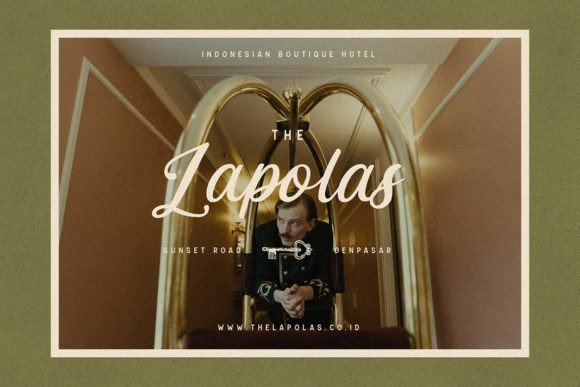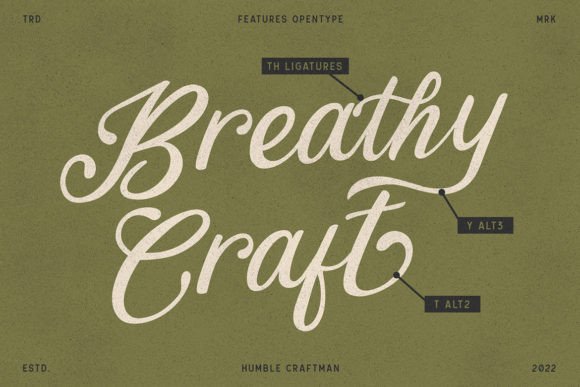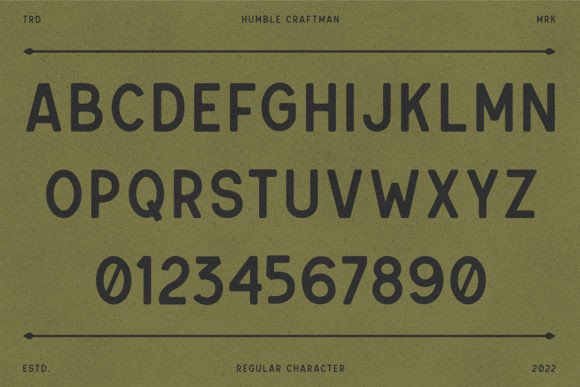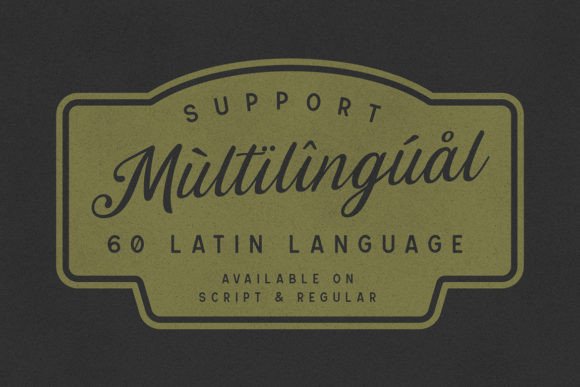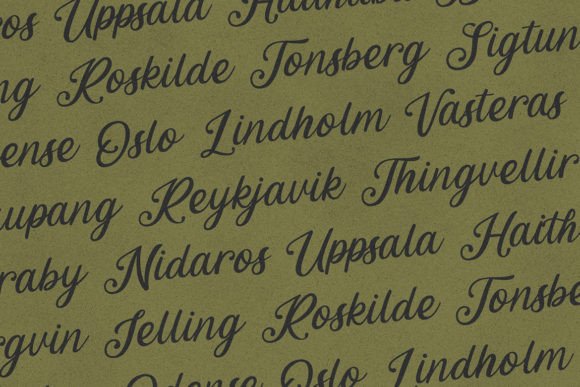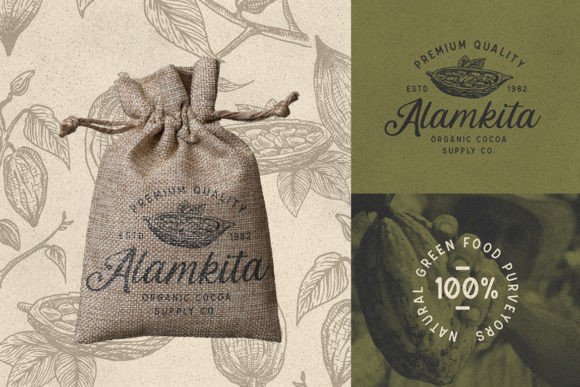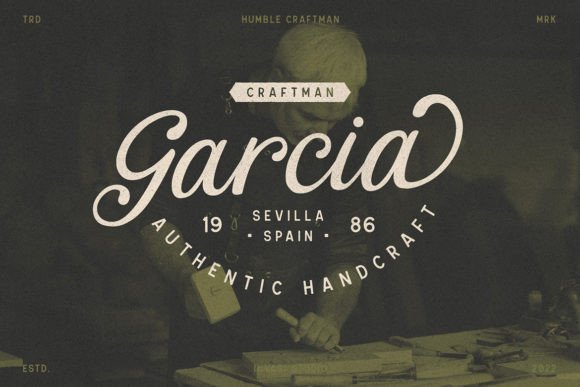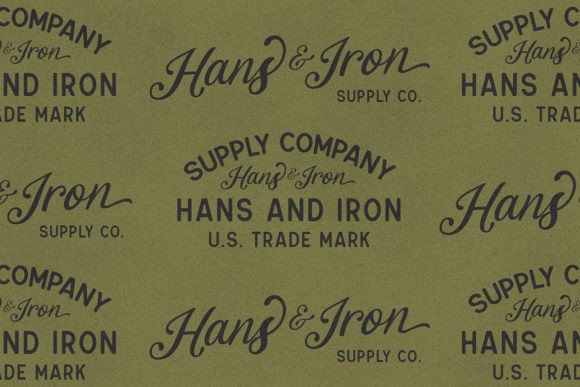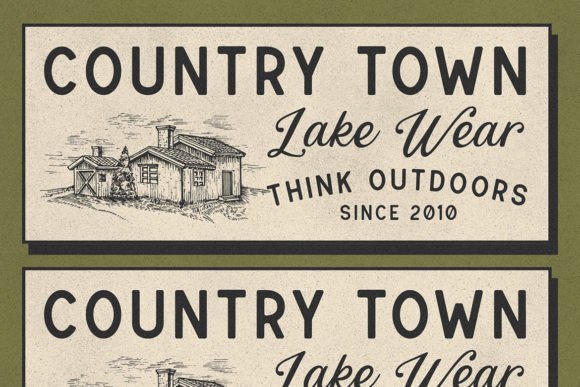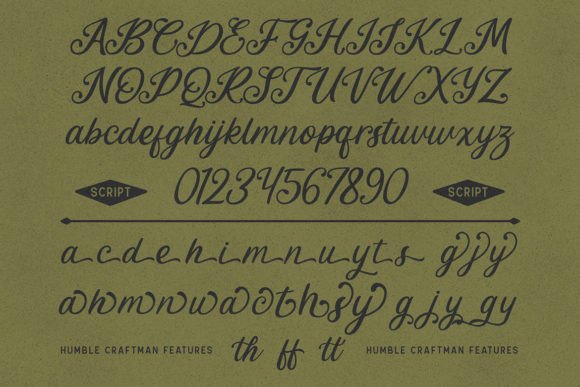
Humble Craftman Font
About Humble Craftsman Font
Humble Craftsman is an incredibly versatile font that combines both script and sans-serif typefaces. This distinctive font effortlessly blends classic historical charm with contemporary retro influences. As a result, it creates a captivating and dynamic typographic experience. Additionally, Humble Craftsman is PUA encoded, providing convenient access to a wealth of fascinating glyphs and ligatures.
Versatility in Design
The versatility of Humble Craftsman shines through its ability to adapt to various design contexts. Whether you’re working on a vintage-inspired project or a modern retro concept, this font bridges the gap between classic and contemporary aesthetics. Therefore, it is perfect for designers looking to create unique and memorable visuals.
Design Possibilities
The inclusion of both script and sans-serif typefaces in Humble Craftsman opens up numerous design possibilities. You can play with the contrast between the two styles to create eye-catching headers, logos, branding materials, and more. Furthermore, this flexibility allows designers to experiment with different looks and feels in their projects.
Ease of Use
By being PUA encoded, this font simplifies the process of accessing its extensive library of unique glyphs and ligatures. Designers and typographers will appreciate how easily they can customize and experiment with various typographic elements. Consequently, it enhances creativity and efficiency in design workflows.
In essence, Humble Craftsman is more than just a font; it’s a design treasure trove that marries history with modernity. Its versatility and unique blend of styles make it a valuable asset for designers seeking to infuse their projects with a distinctive and memorable typographic identity. So, embrace Humble Craftsman as your design companion, and watch as it helps you effortlessly blend classic and contemporary vibes to create captivating and unforgettable designs.
Additionally, this font is ideal for various projects in the design industry. For example, designers can use it for social media graphics to create a cohesive look across platforms. Moreover, it can feature on menus, invitations, or event banners, adding a special touch to any gathering. It’s a superb choice for artists looking to showcase their unique style through branding or promotional materials while catering to both digital and print formats.